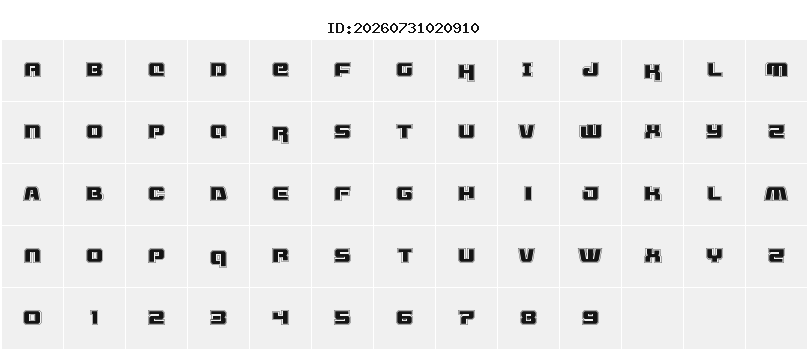
Livewired Academy.ttf is a modern, elegant sans-serif font designed for ultimate readability and visual harmony. Perfect for branding, headlines, web design, and print materials.